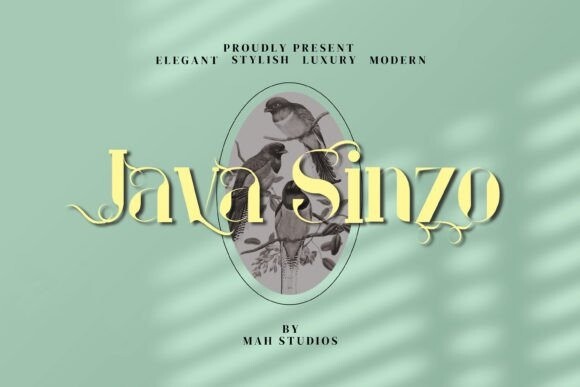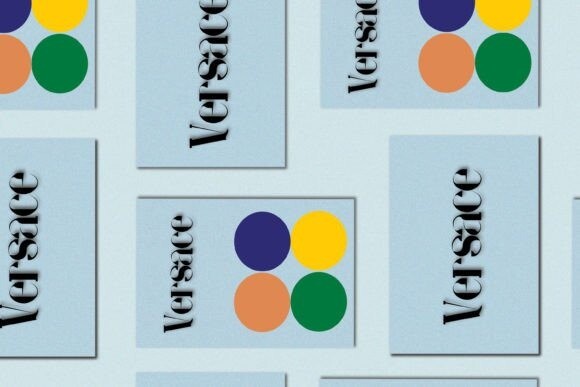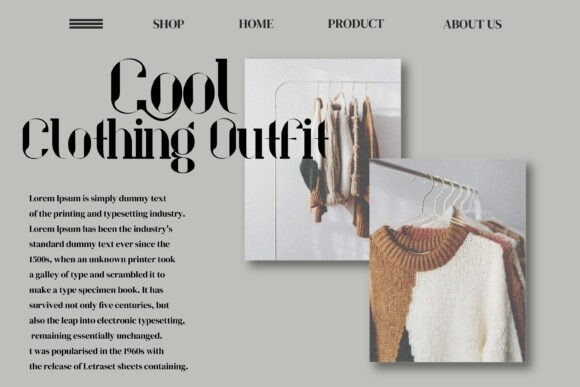
Java Sinzo Font
Java Sinzo is a modern and powerful serif font, suitable for any project such as logos, branding projects, homeware designs, product packaging, mugs, quotes, posters, shopping bags, t-shirts, book covers, name cards, invitation cards, greeting cards, label, photography, watermark, special events, and all your other luxury projects that need a premium signature taste.
This font is PUA encoded, which means you can access all of the glyphs and swashes with ease!